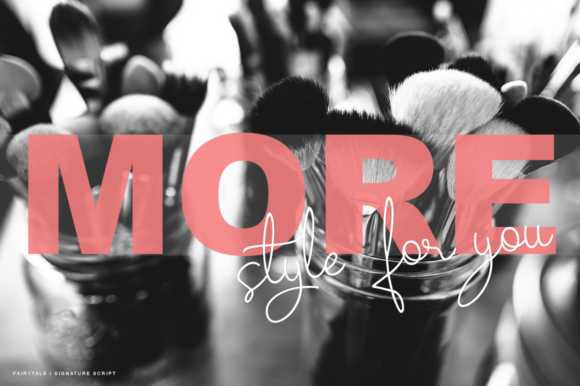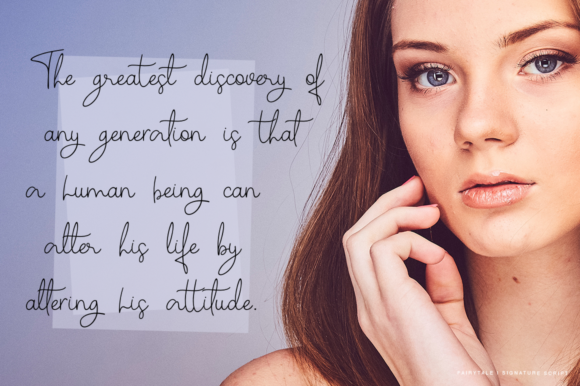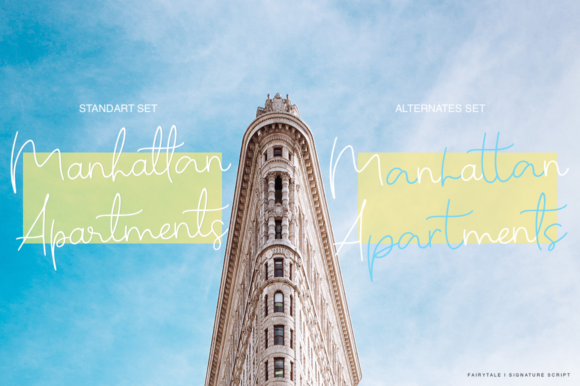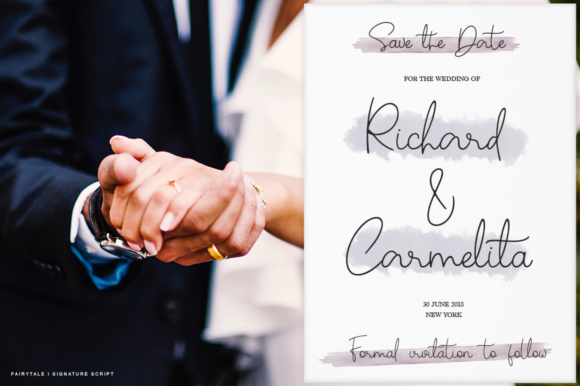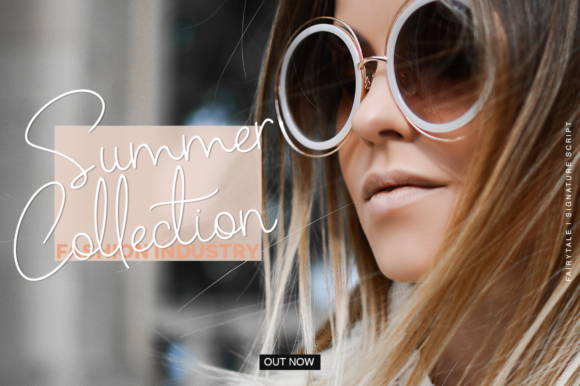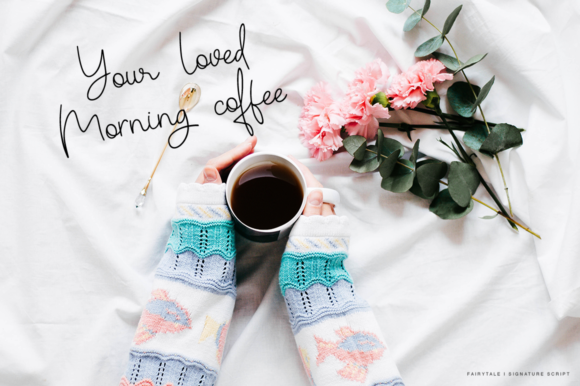
Fairytale Font
About Fairytale Font
Fairytale is a fresh, handmade calligraphy font.
It’s ideal for branding and decorating your projects. Perfectly suitable for wedding invites or for your blog.